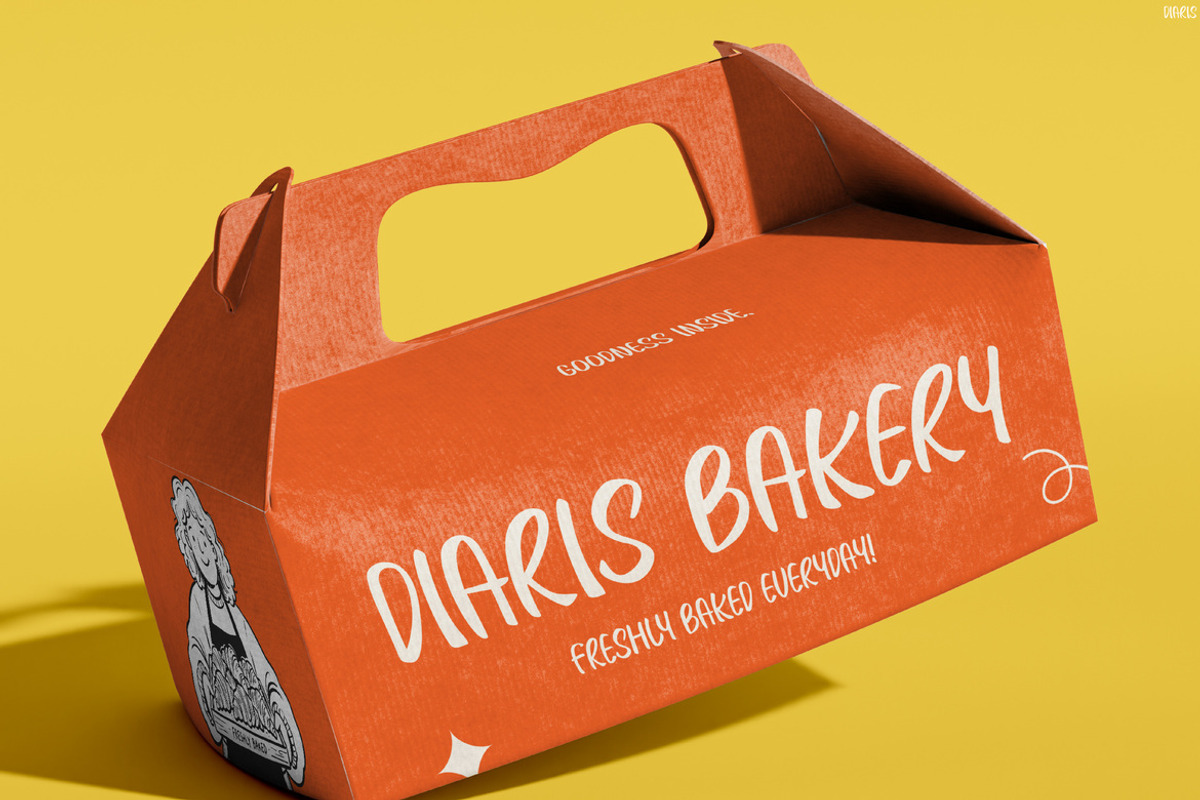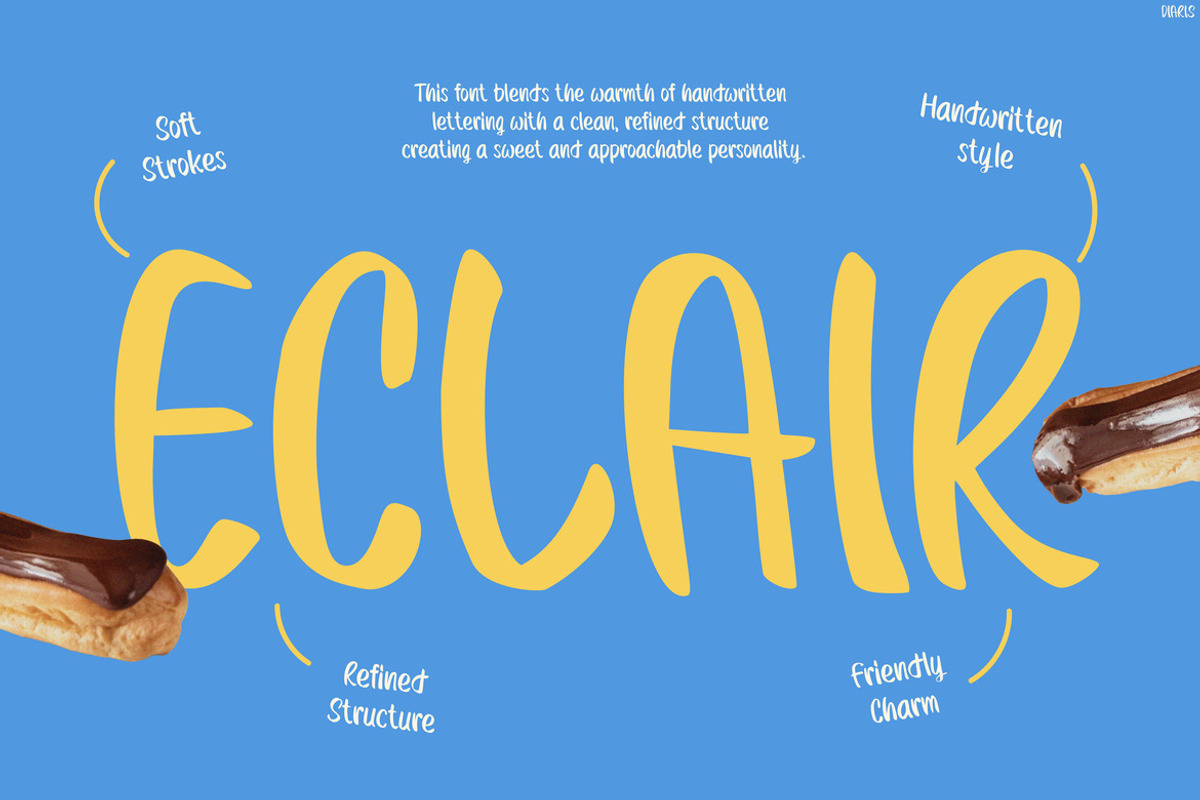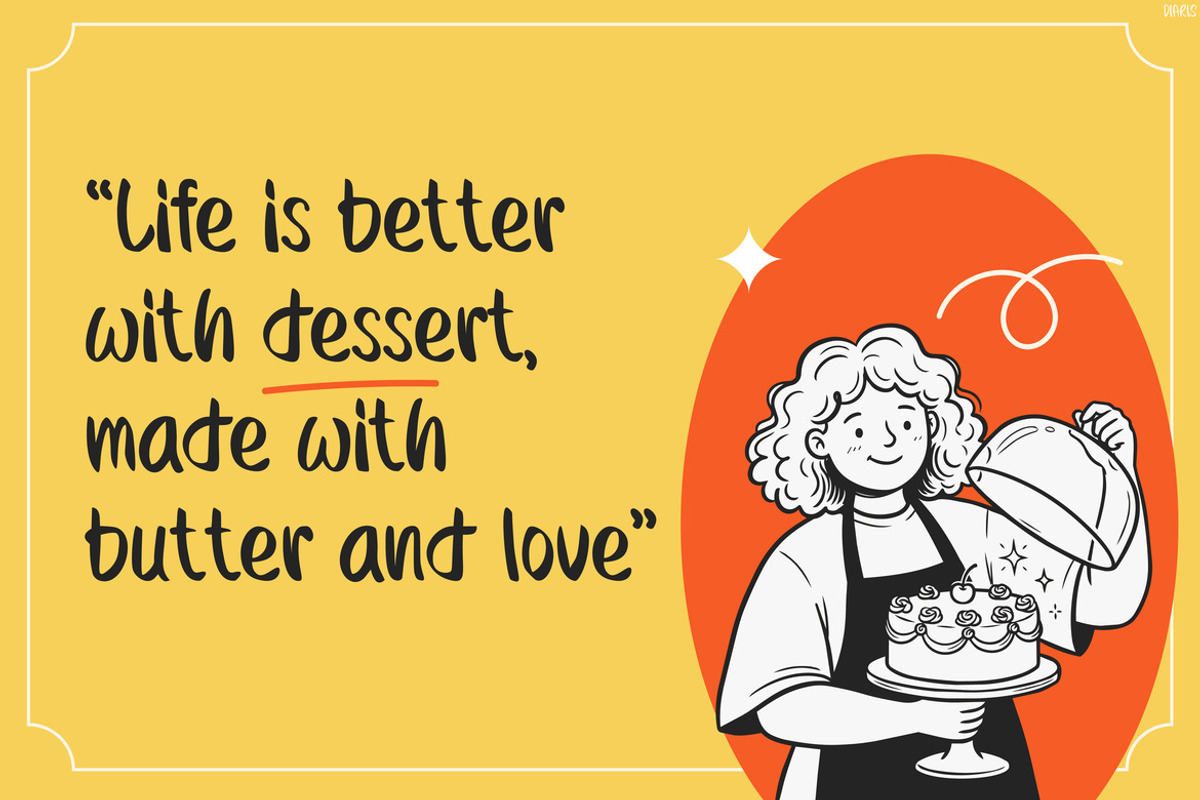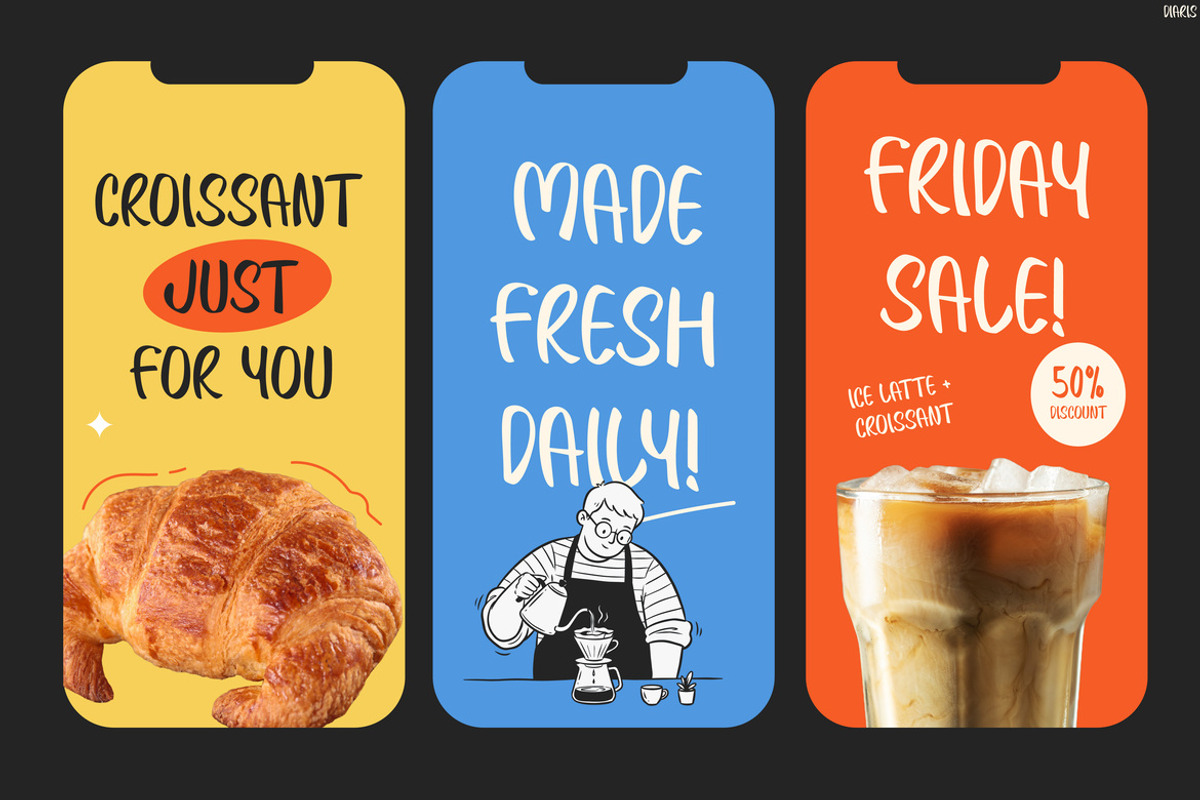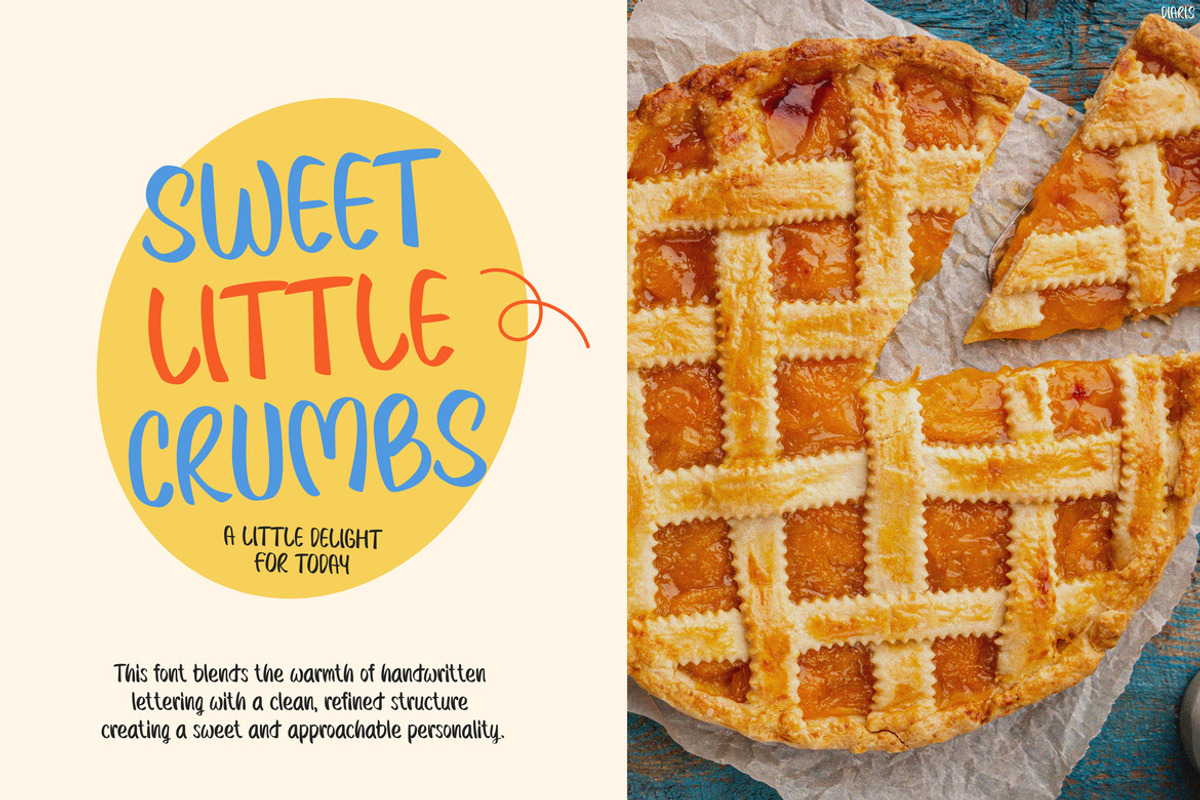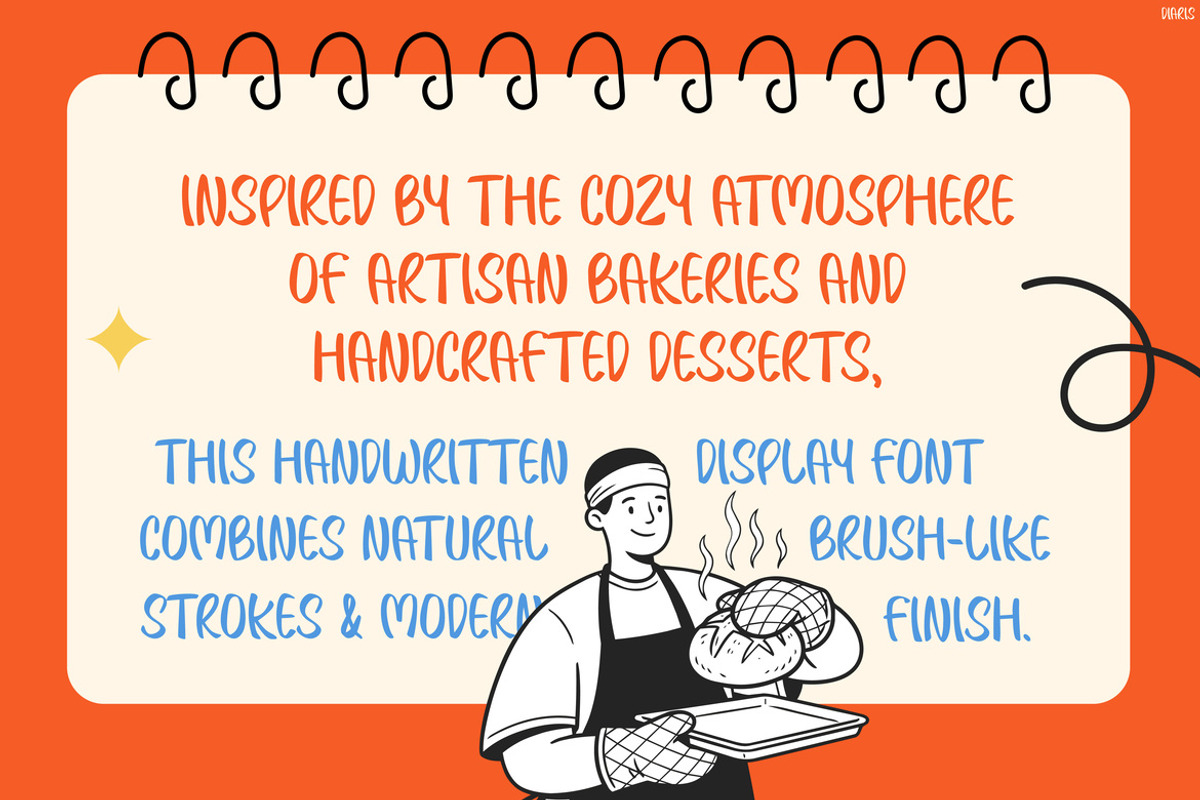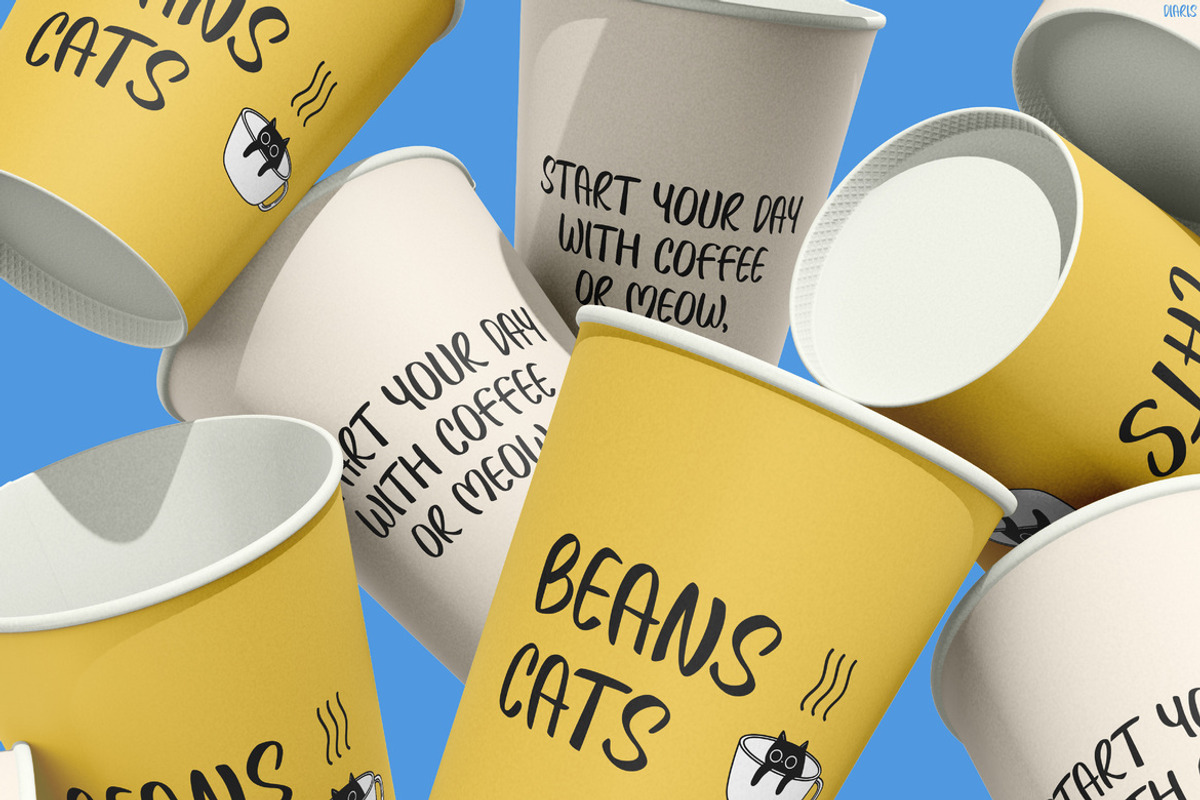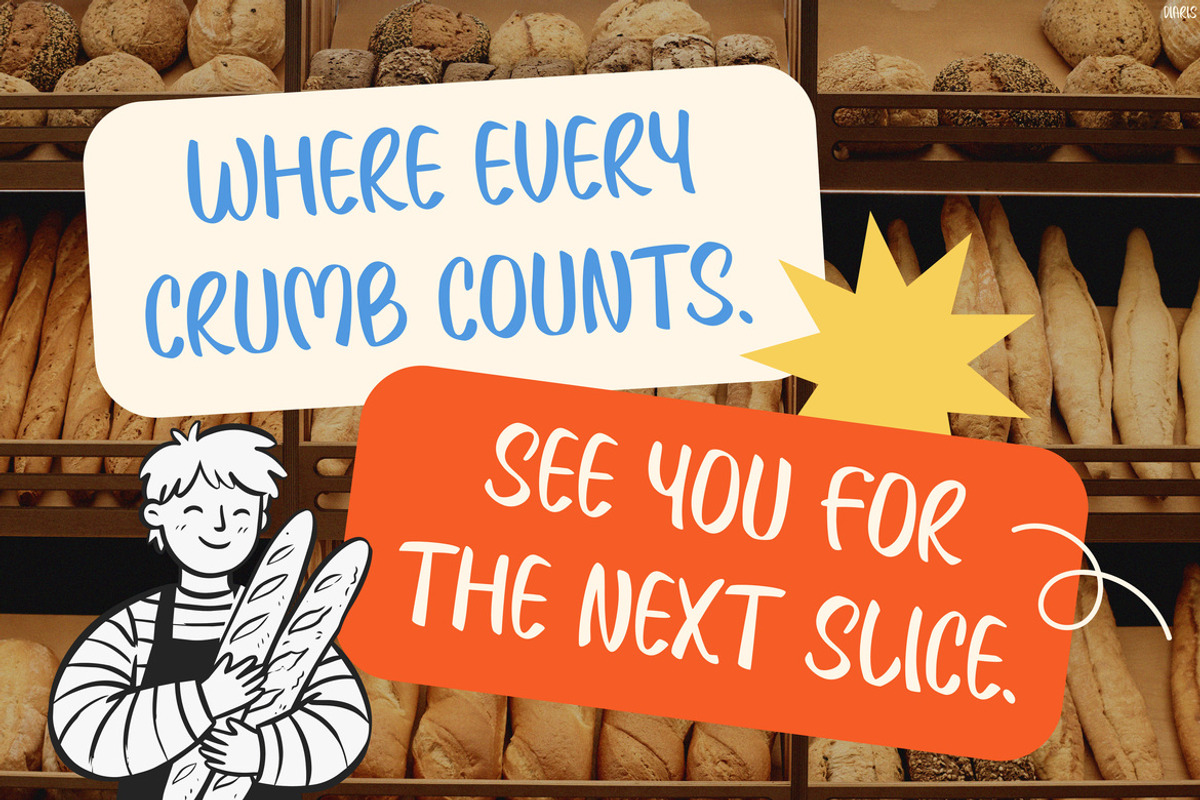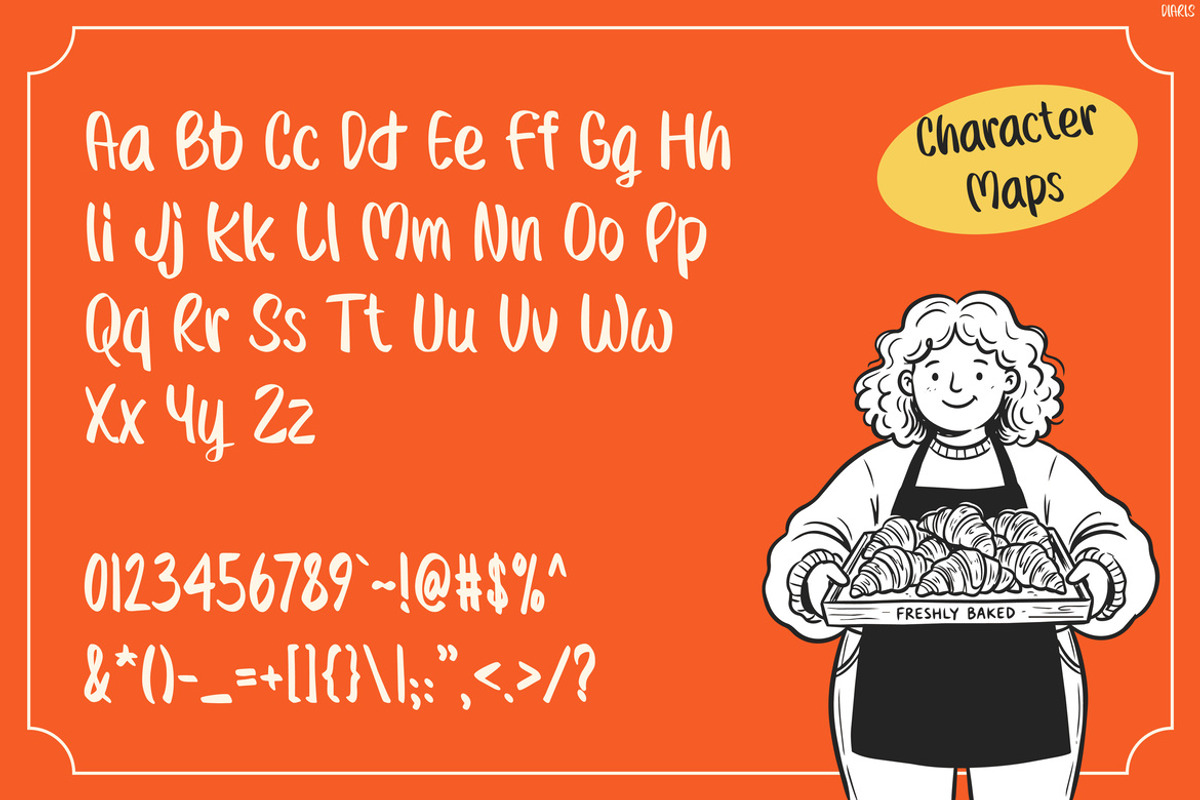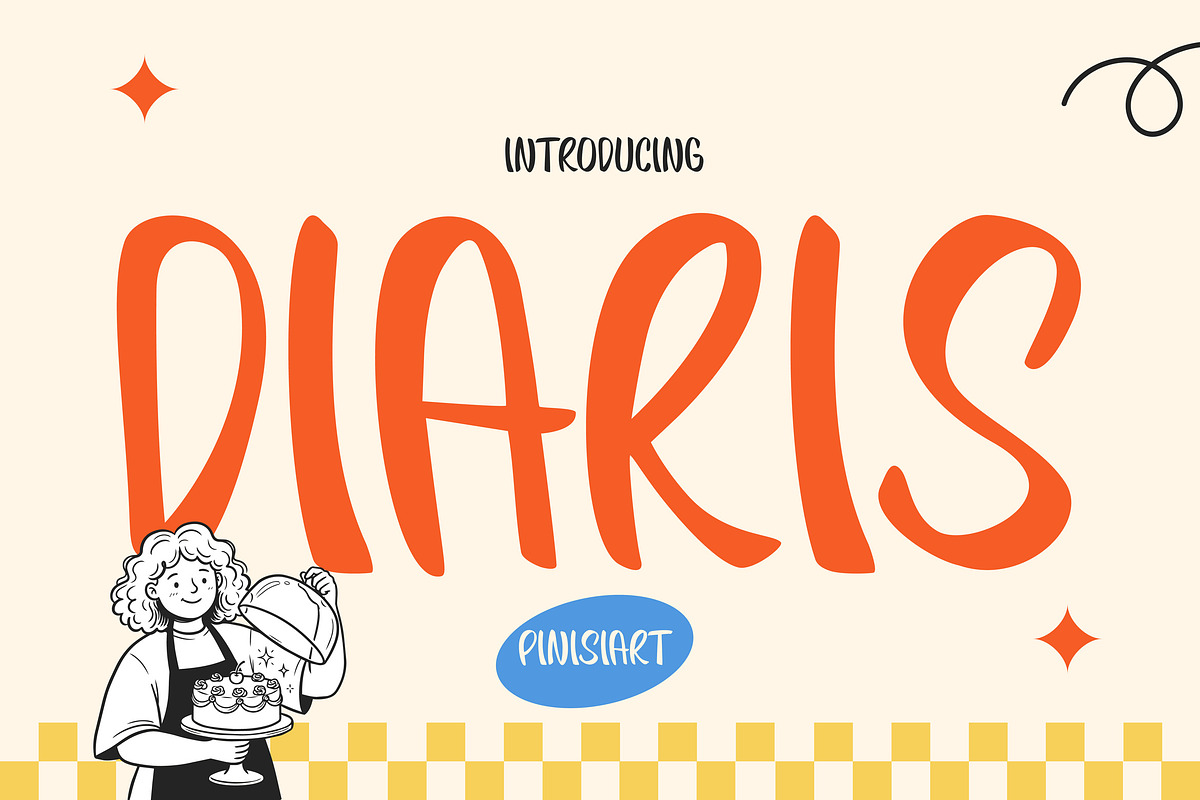
Diaris
Handwriting Font Diaris – Fresh Strokes. Sweet Moments. Handmade Happiness.
Handwriting Font Diaris brings the comforting charm of artisan bakeries and cozy cafés into every design with its playful handwritten strokes and warm, handcrafted personality. Unlike ordinary handwriting fonts, Diaris blends natural brush movement with soft, rounded forms to create typography that feels genuine, welcoming, and full of flavor. Moreover, every letter carries a relaxed rhythm that makes headlines feel personal and inviting. As a result, your designs instantly create a friendly atmosphere that people remember. In addition, its expressive style balances creativity with readability, so every word remains clear across print and digital projects. Whether you’re designing bakery branding or café promotions, Diaris turns simple messages into delightful visual experiences.